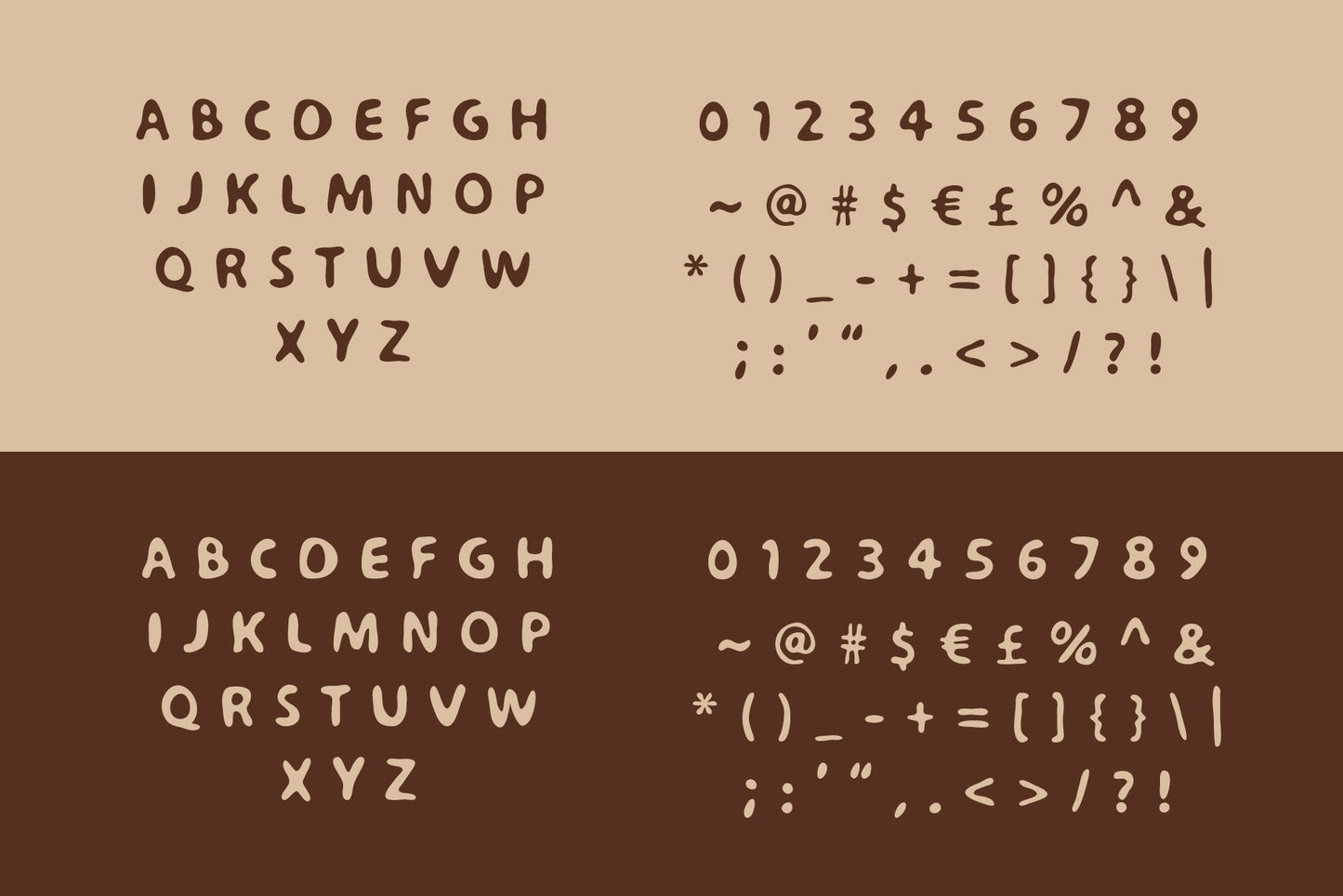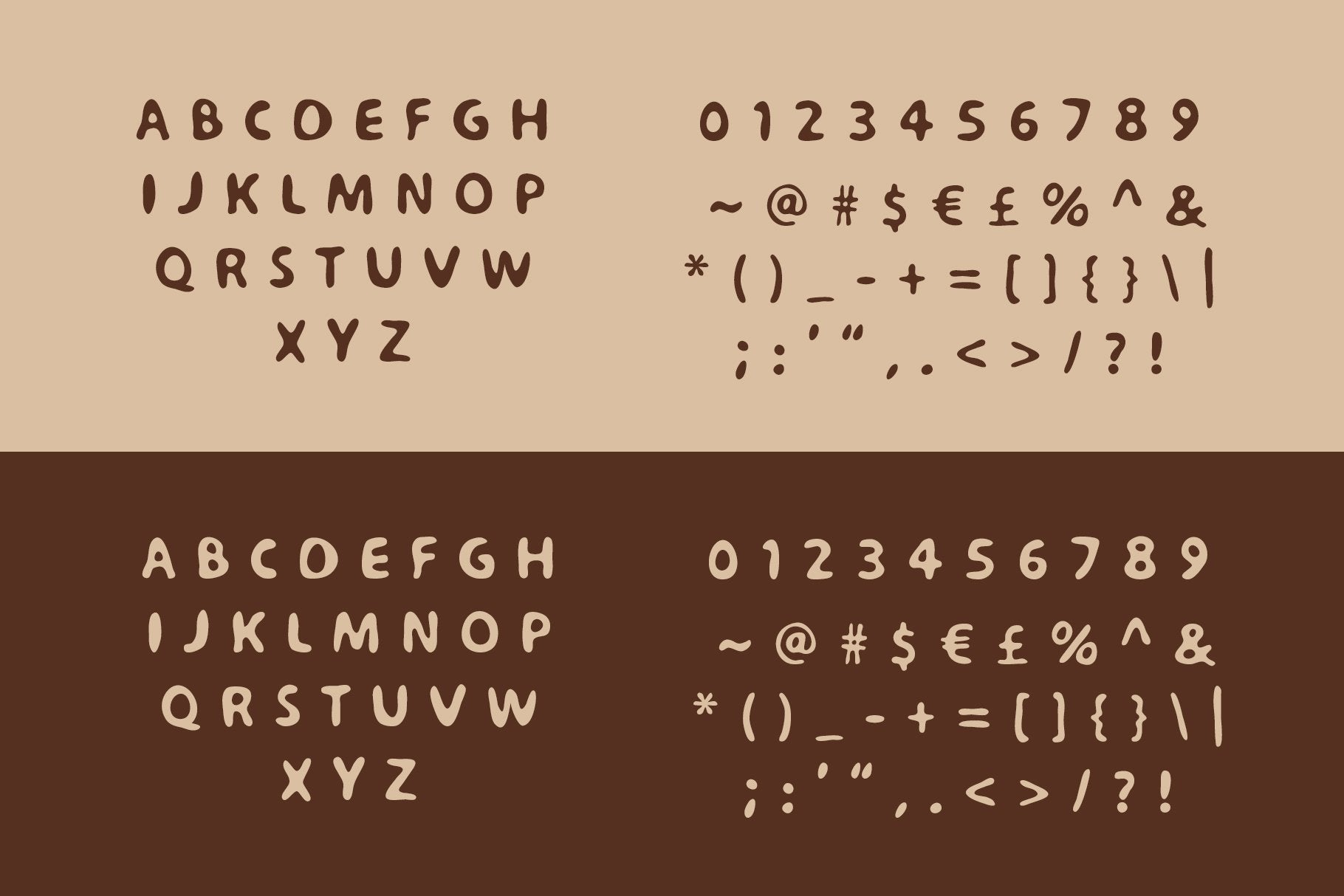
Textured Organic Font - Crispy Feel
Textured organic shapes uppercase font "Crispy Feel" and it's textured version "Crispy Feel TXR". It's textured organic shapes remind of something really crispy and crunchy. Use this san-serif font when you need to give organic natural feel to your designs.
This uppercase san-serif font works great in trendy, nostalgic design styles when you need a good accent for titles, headlines. You can use it for small text too. It’s great for various print and web projects - especially food related ones, as well as blogs, invitations, flyers, posters, short quotes in social media, brochures, packaging, business cards, etc. "Crispy Feel" looks beautiful in earthy and pastel colors.
"Crispy Feel" and "Crispy Feel TXR" fonts consist of:
- Uppercase characters
- Numerals
- Punctuation